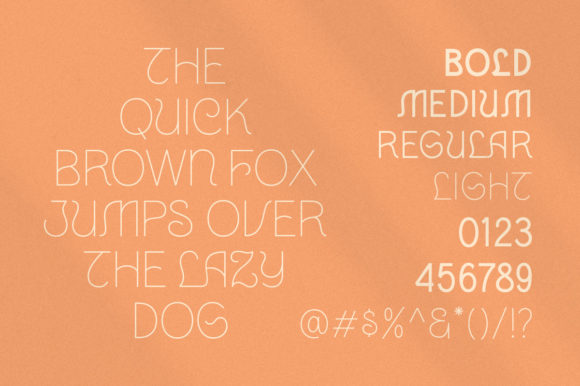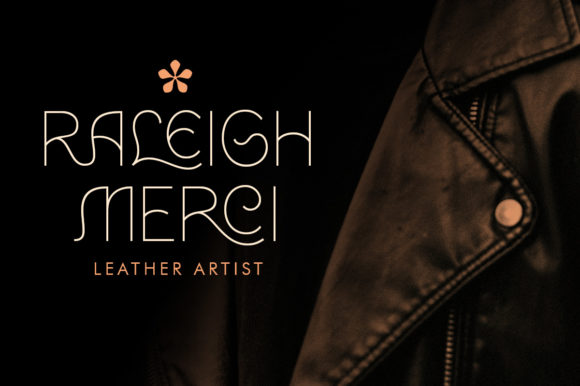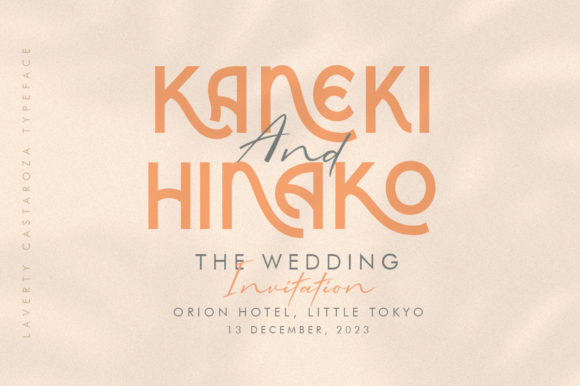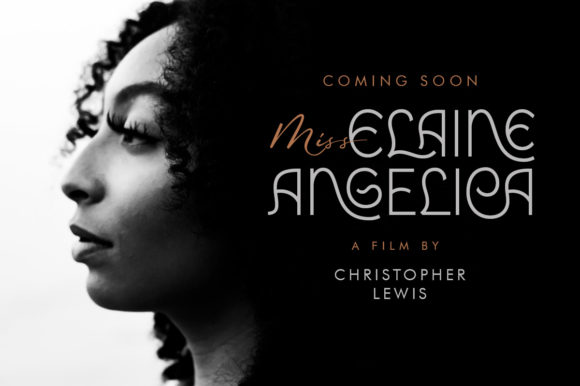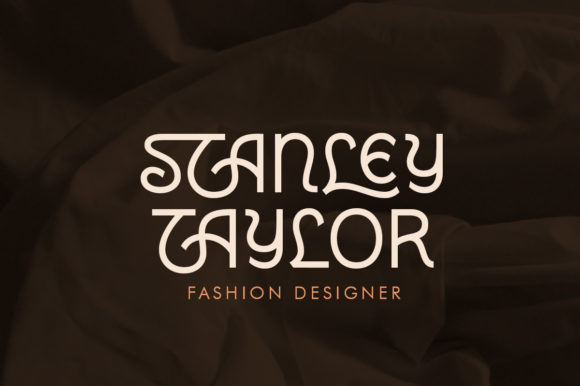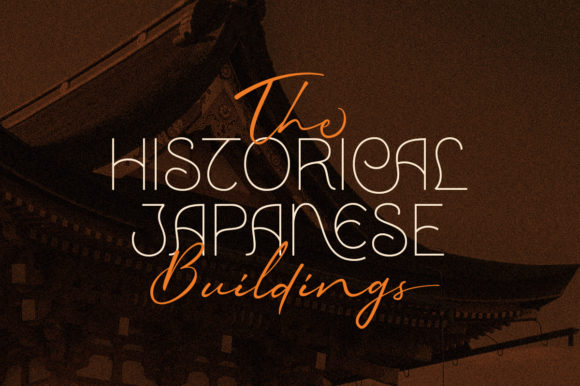
Introduction to Laverty Castaroza Font Font
Fonts play a crucial role in design, and the Laverty Castaroza Font font is a typeface that brings both character and versatility to any project. Whether you’re working on a branding project, a website, or a print design, the Laverty Castaroza Font font offers a unique style that can elevate your work.
Laverty Castaroza is a fresh and unique display font with a carefree attitude and a playful edge.
Key Features of Laverty Castaroza Font Font
• ✅ High-quality typeface designed for professional use
• ✅ Includes a wide range of glyphs and characters
• ✅ Ideal for logos, branding, websites, and print
Why Choose Laverty Castaroza Font Font?
The Laverty Castaroza Font font is more than just a typeface – it’s a design tool that helps you communicate your message with style and clarity. Its unique character set and versatile design make it suitable for a wide range of applications, from elegant invitations to bold headlines.
With its carefully crafted letterforms and balanced proportions, the Laverty Castaroza Font font ensures readability and visual appeal across all mediums.
What makes Laverty Castaroza Font font special?
The Laverty Castaroza Font font stands out with its unique design, exceptional readability, and versatility across various design applications.